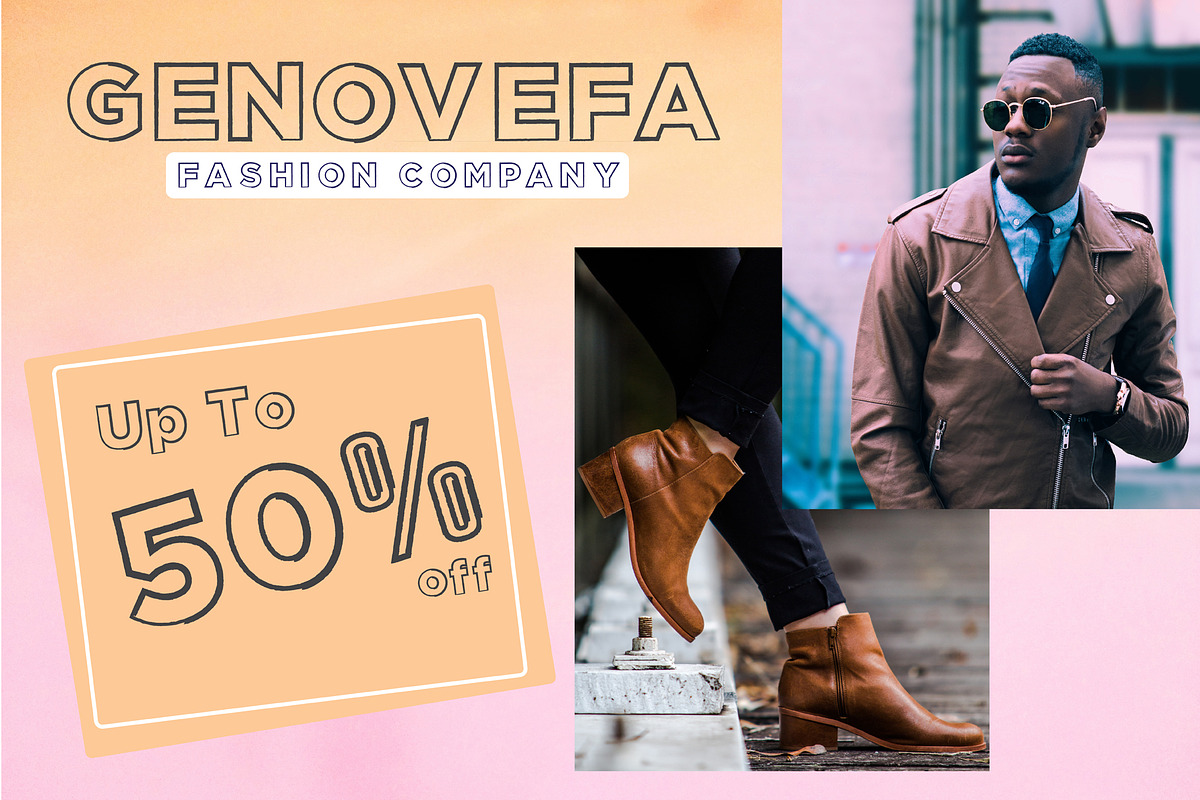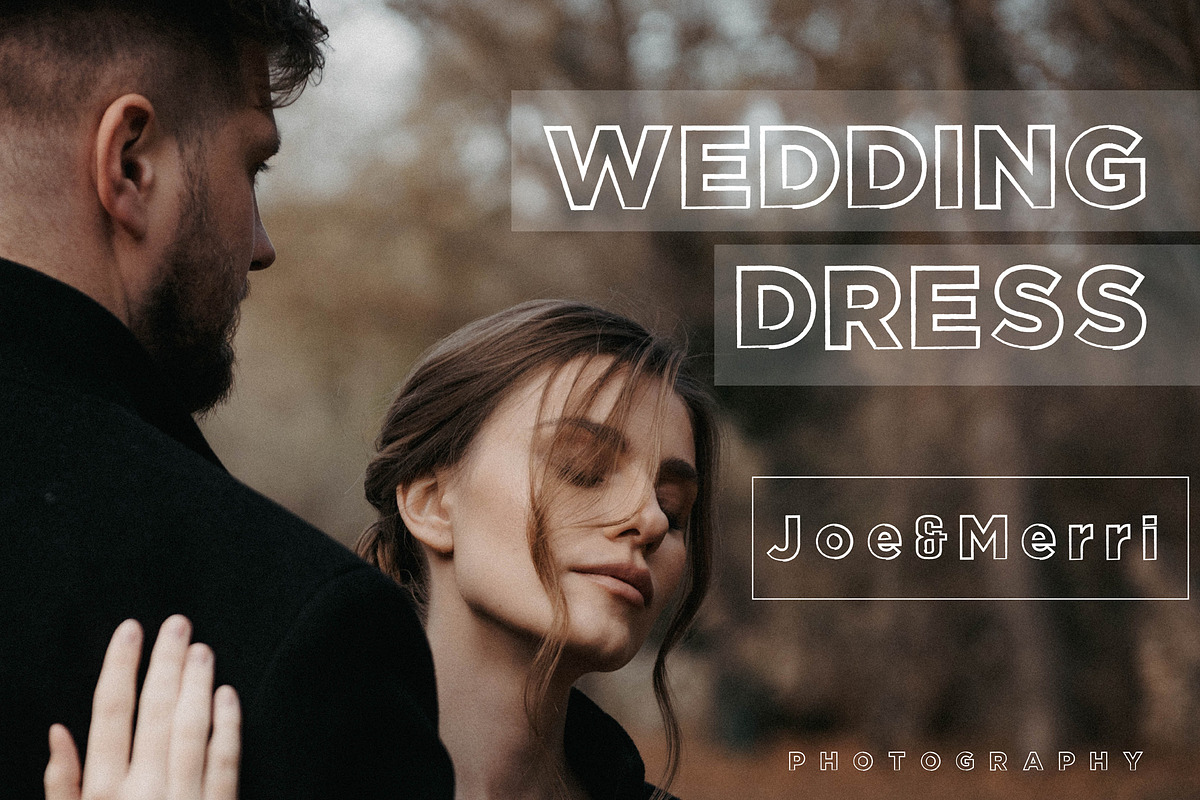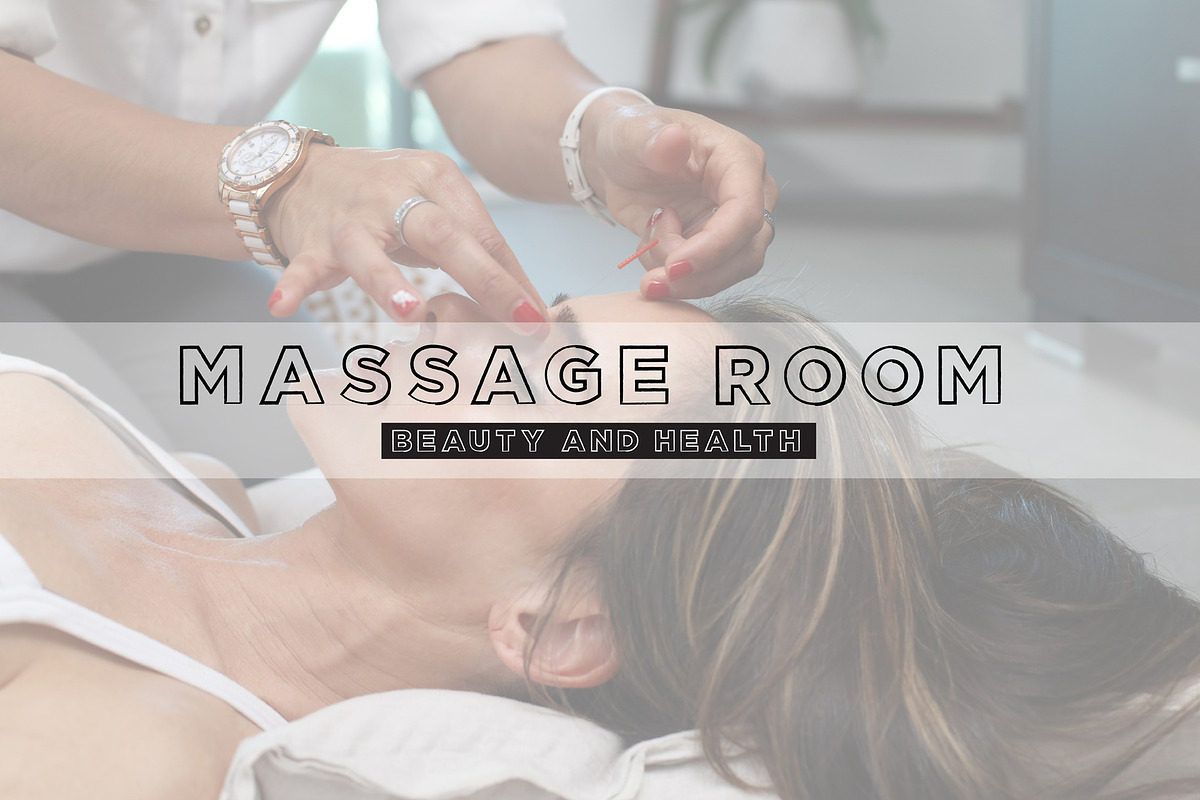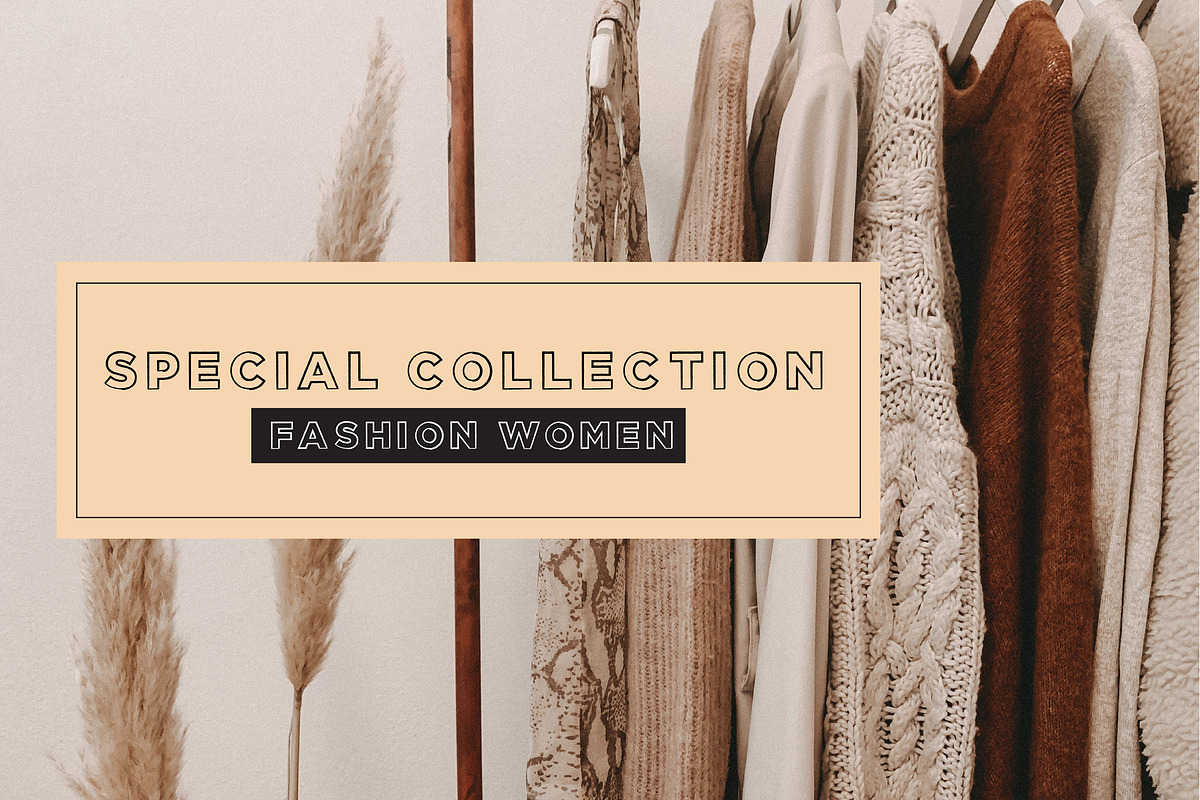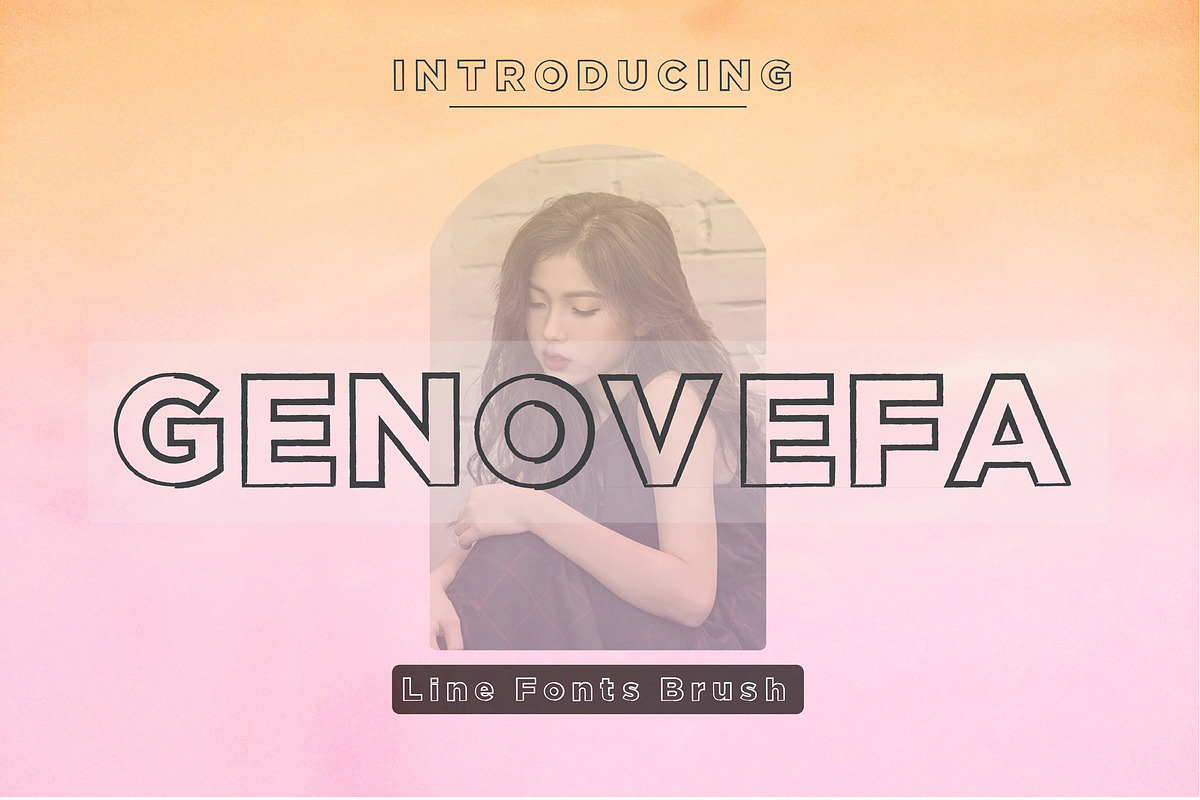
Genovefa
Genovefa is a bold typeface with an attractive brushed look that comes in style: a sans-serif look with reverse contrast. Its imperfections keep it casual while still providing legibility. Genovefa is a powerful choice with large sizes to use on headlines, posters, billboards, magazines, advertisements, etc.